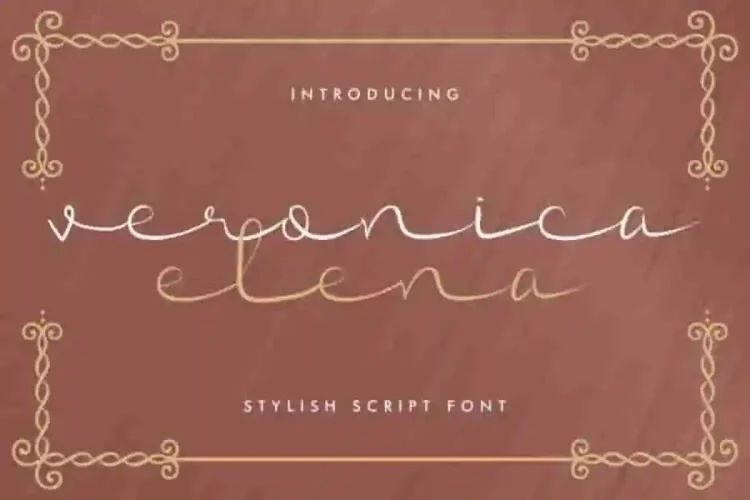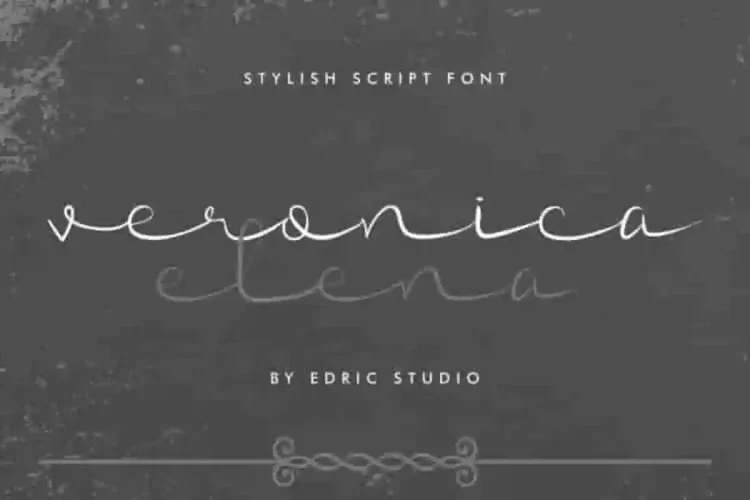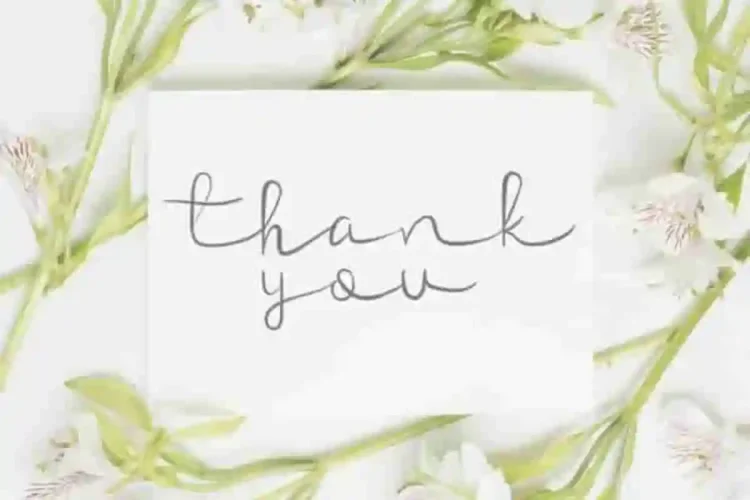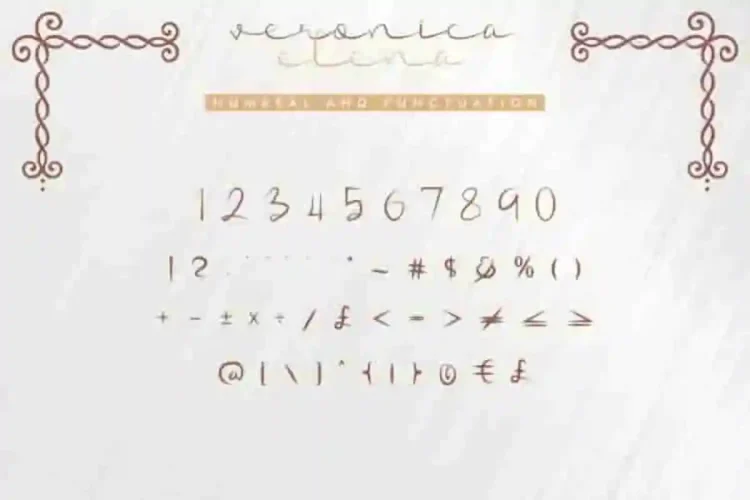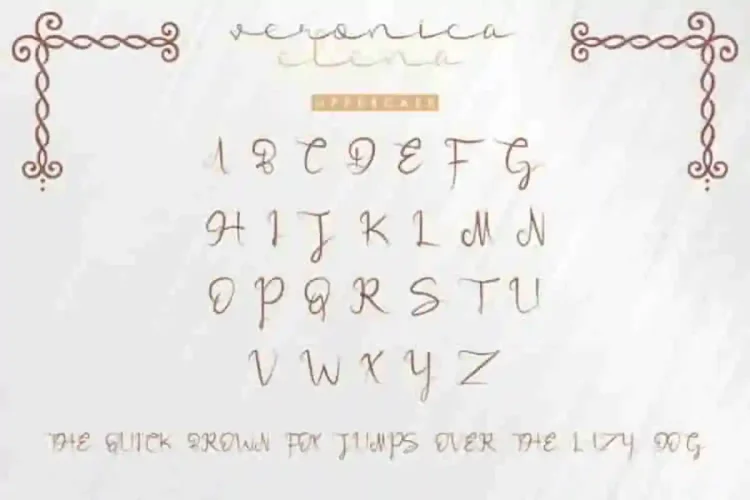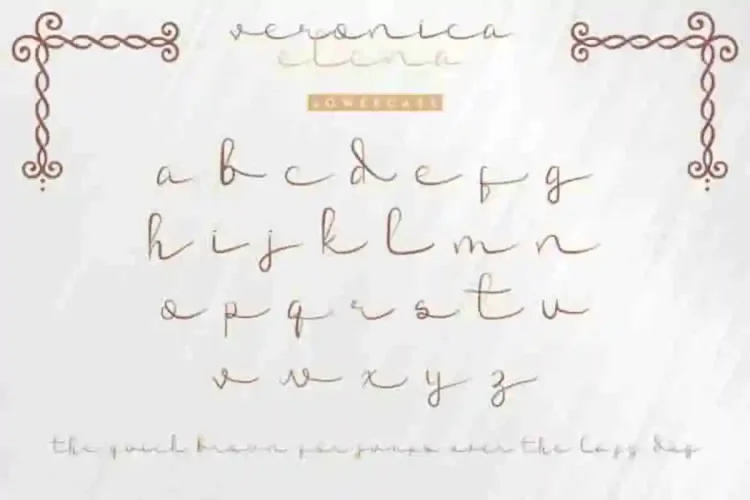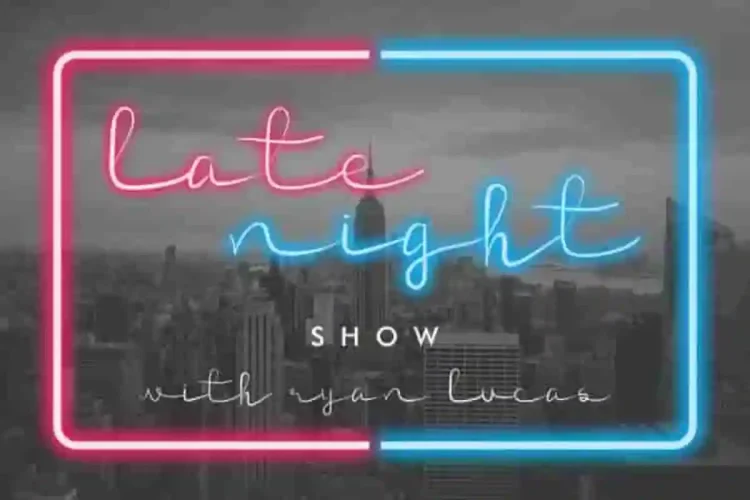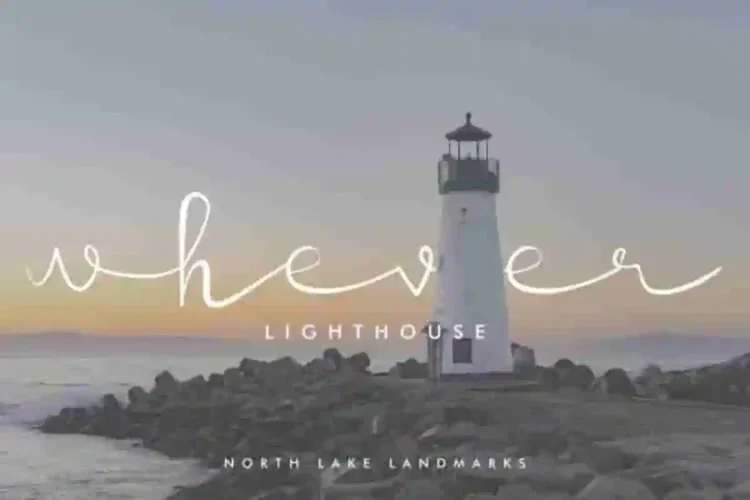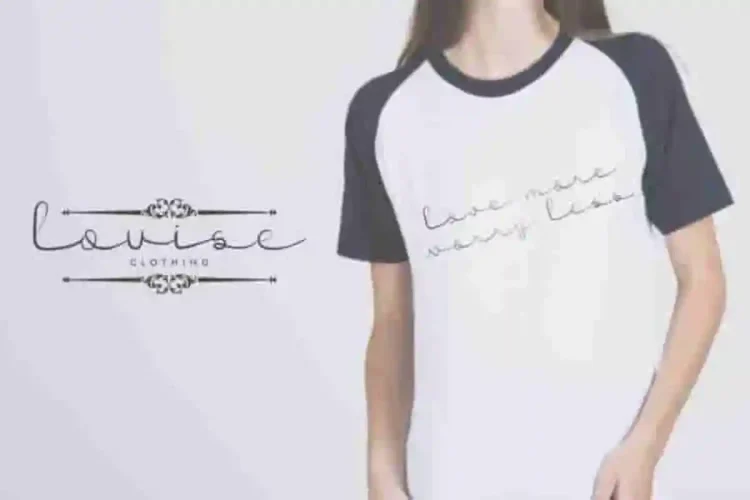
Veronica Elena Script Font
Please welcome : Veronica Elena Script Font
This is a handwritten calligraphy script font, made by two artists : Aghnia and Suci. Originally made in Bandung and Garut, Indonesia.
Veronica Elena Script Font has a stunning characters style. You can using it for many industries and designs categories including: events, promotion, florist, gardening, makeup, architect, lawyer, cafe etc. With an extended licenses you can create anything you want : Branding (logo, stationery, bizcard, head letter, folder etc), promotions stuff (flyer, brochure, postcard etc), Digital marketing (Banner, Ads, cover etc), Personal Invitation, Magazine, Website etc.